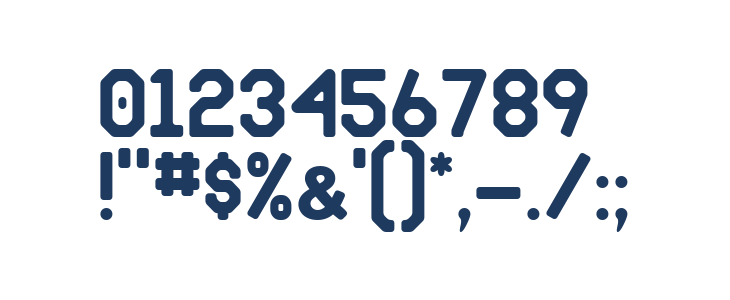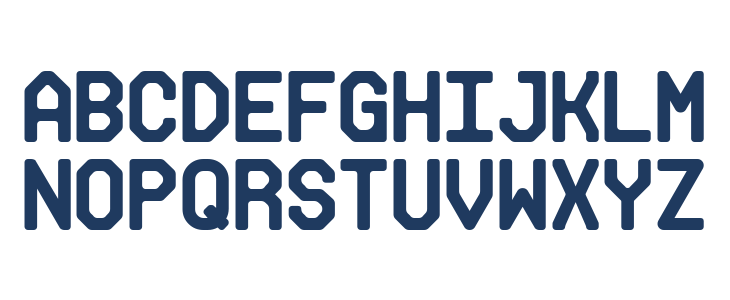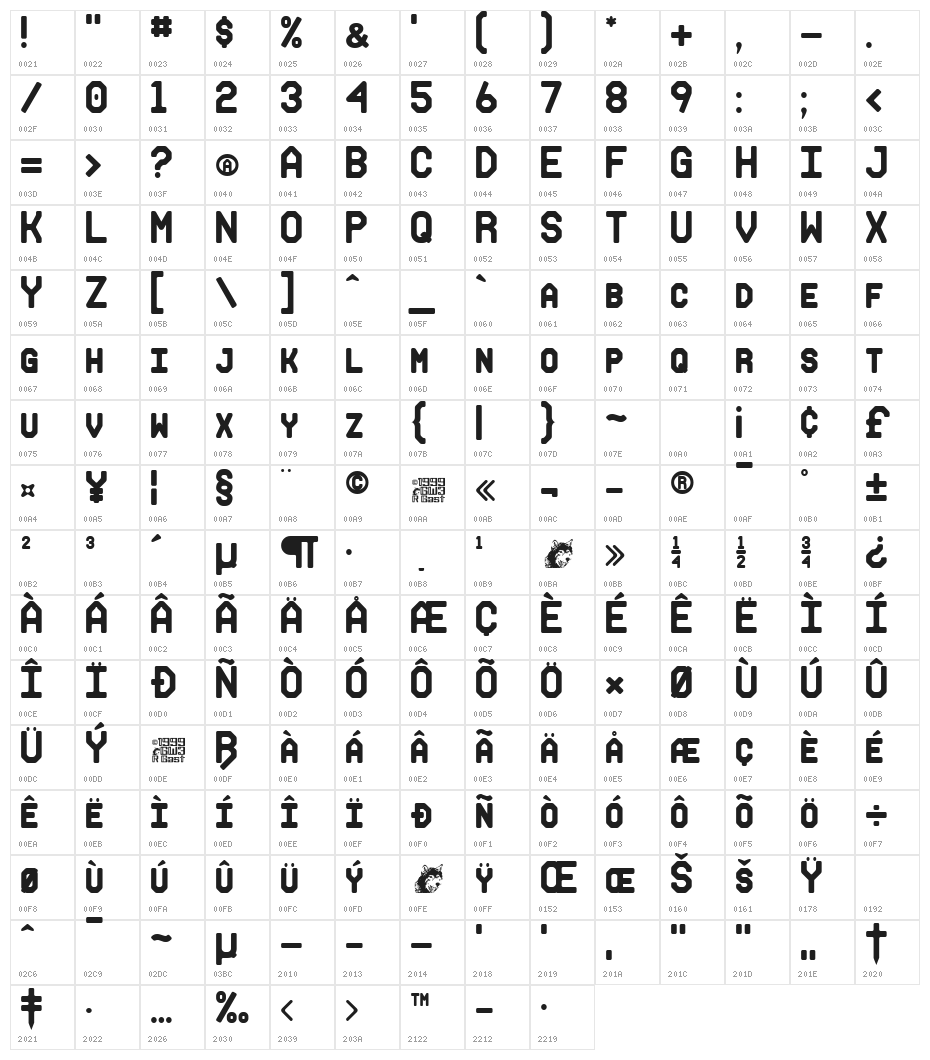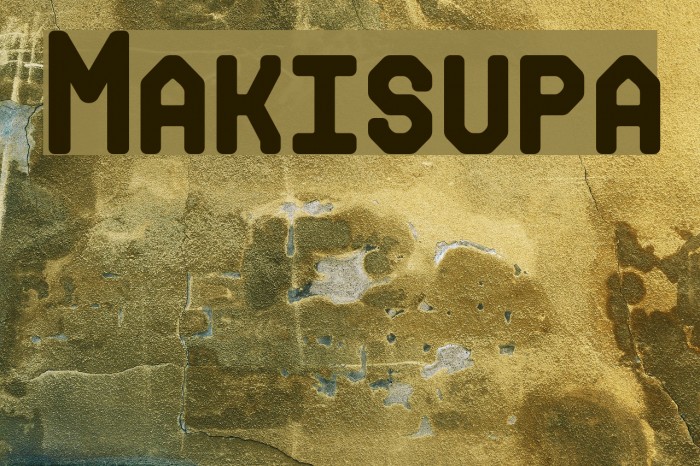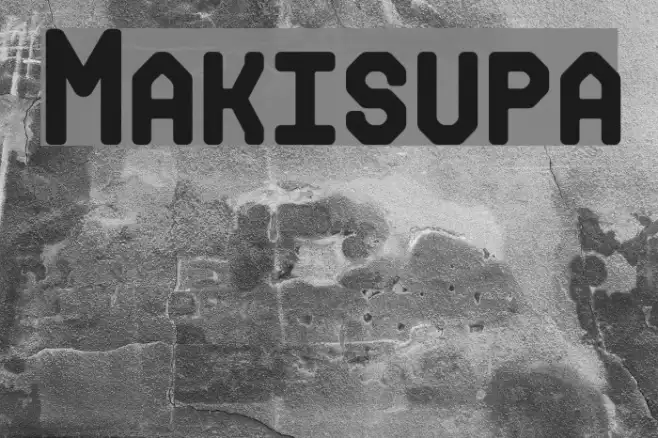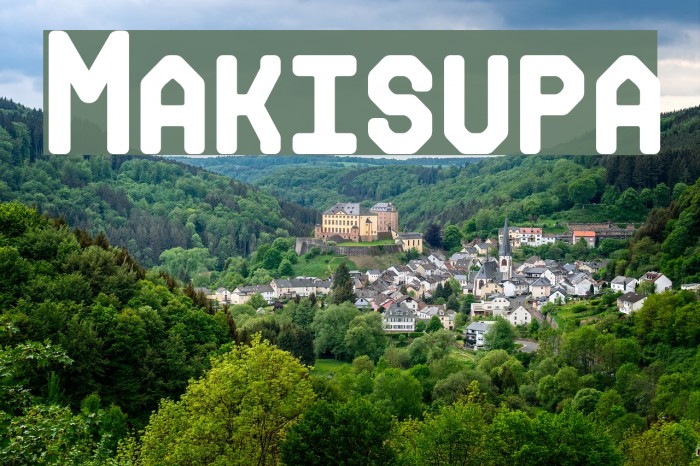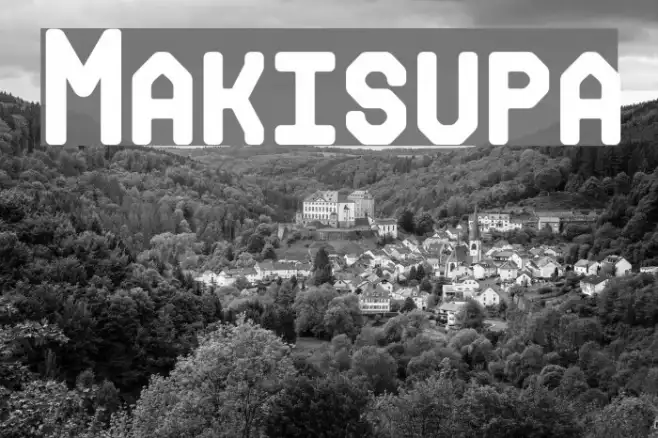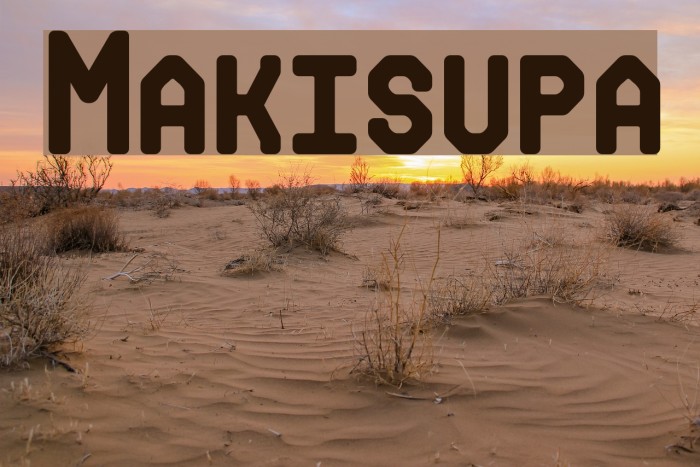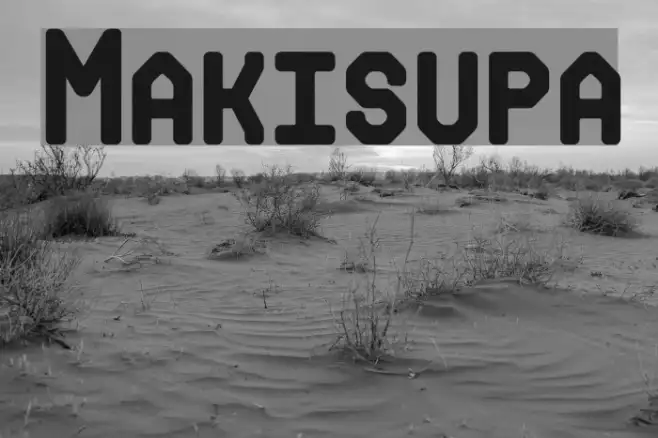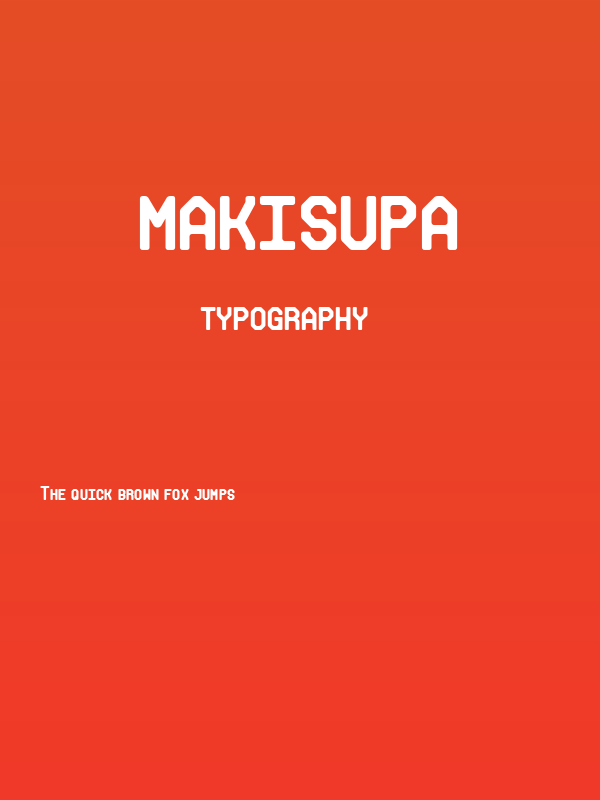
Makisupa Font
Makisupa Description
This font features a bold and geometric design with a strong presence. The characters are constructed with thick, uniform strokes, giving it a robust and industrial feel. The edges are slightly rounded, softening the overall appearance while maintaining a modern aesthetic. The uppercase and lowercase letters are consistent in style, with a uniform height that enhances readability. Numbers and special characters are designed to match the boldness of the letters, ensuring a cohesive look across all text elements. This font is ideal for making a strong visual impact.